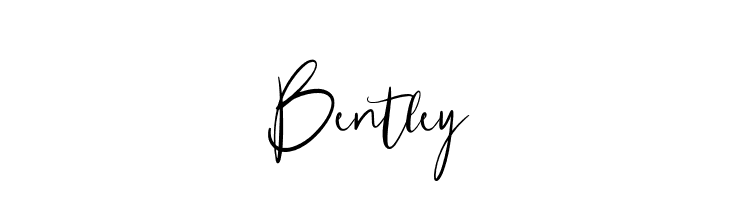
A playful, handwritten font with rounded, consistent strokes and a casual vibe.
A decorative font with bold characters enclosed in ornate, gear-like frames.
A playful, hand-drawn font with tall, narrow letters and a whimsical style.
A bold, expanded, and italic font with decorative cutouts for a dynamic look.
A decorative rope-themed font with a playful, textured design.
A bold, italicized cursive font with a mystical, calligraphic style.
A futuristic, geometric font with circular nodes and connecting lines.
A bold, condensed font with a modern, geometric style.
A bold, 3D geometric font with a futuristic and mechanical style.
A bold, Gothic-inspired font with sharp, angular edges and dramatic serifs.